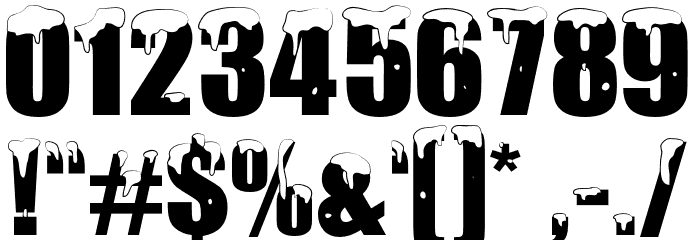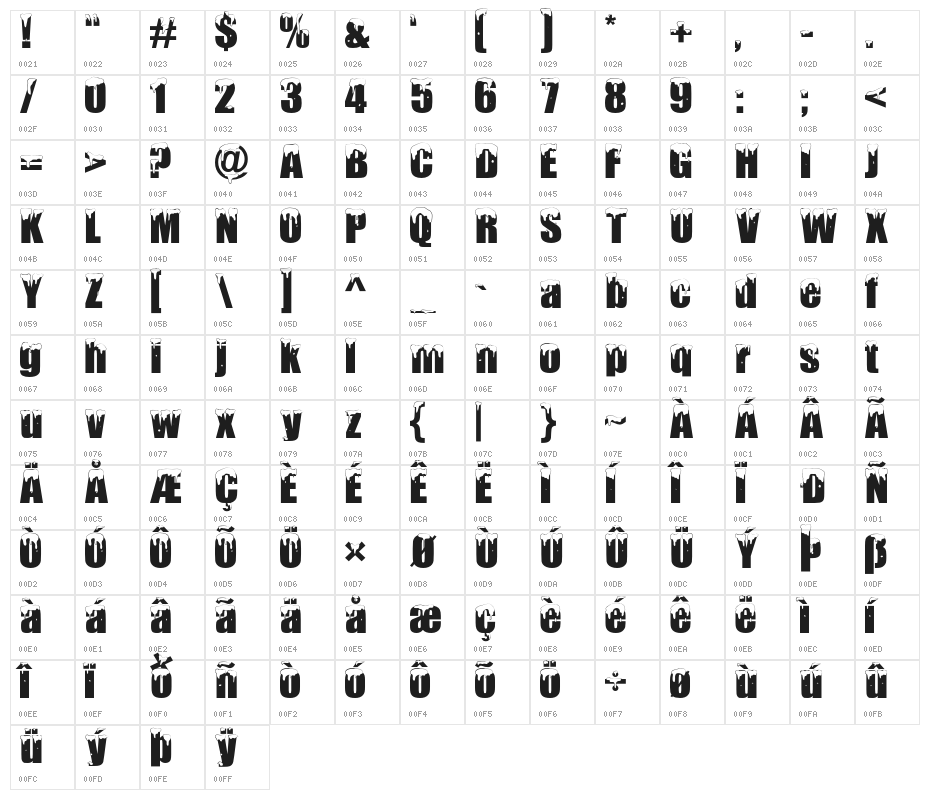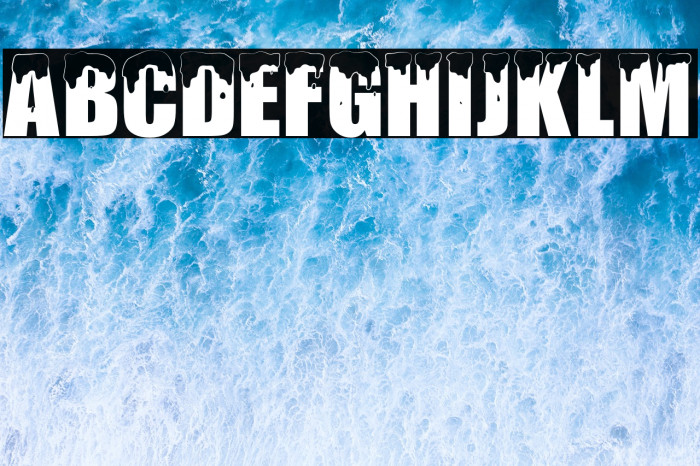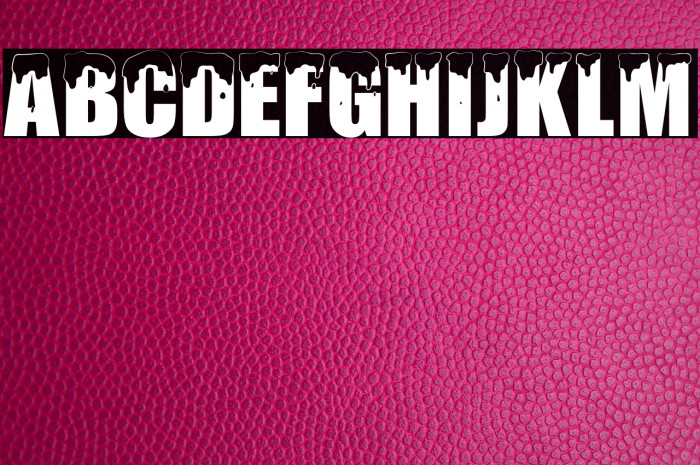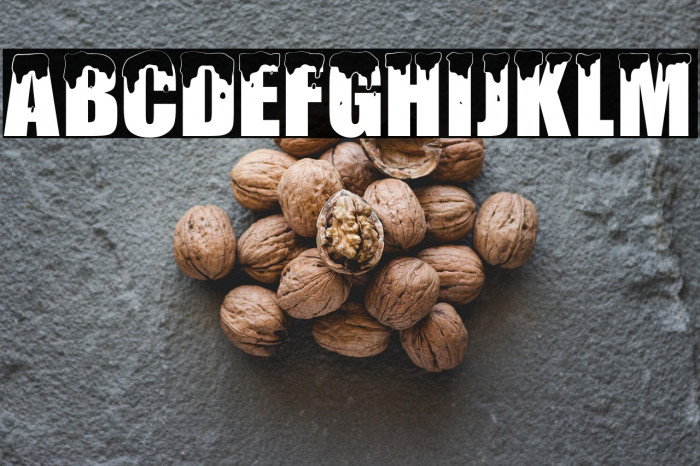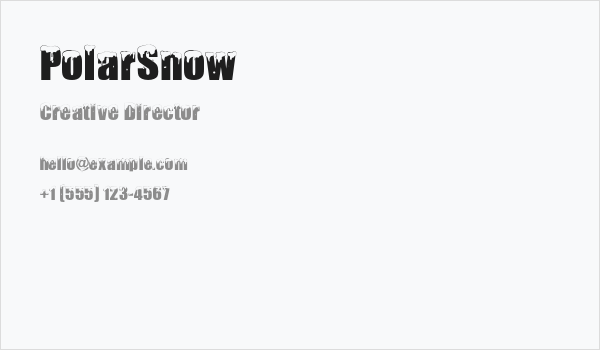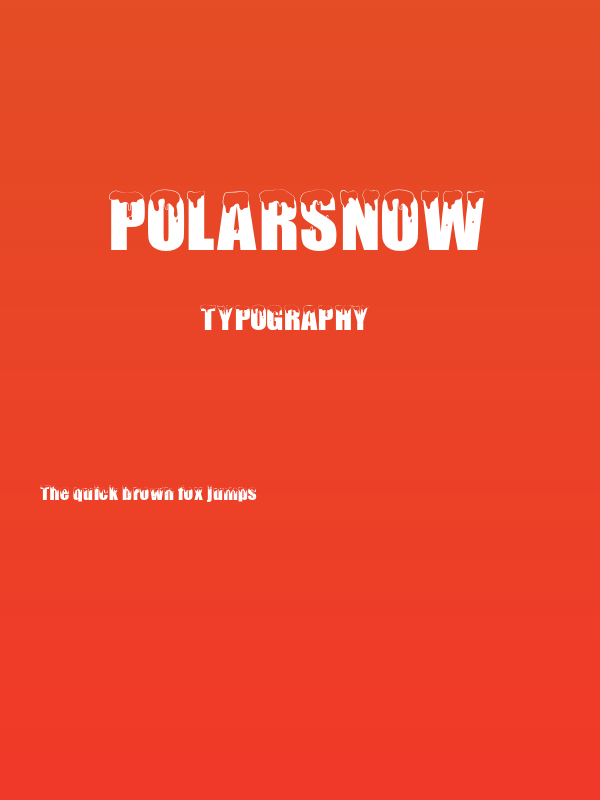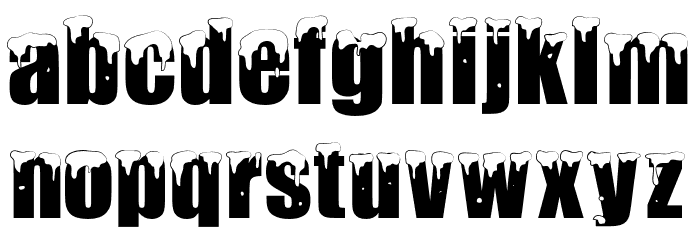
PolarSnow Font
PolarSnow Description
This font features bold, uppercase and lowercase letters with a playful, wintry theme. Each character is adorned with a snow-like effect on top, giving it a unique and festive appearance. The design is thick and robust, making it stand out, while the snow detail adds a whimsical touch. The numbers and special characters also carry the same snowy embellishment, ensuring consistency across all glyphs. This font is perfect for holiday-themed projects or any design that requires a touch of winter magic.
| Proposed Projects | Ideal for holiday cards, winter festival posters, seasonal advertisements, and festive event invitations. |